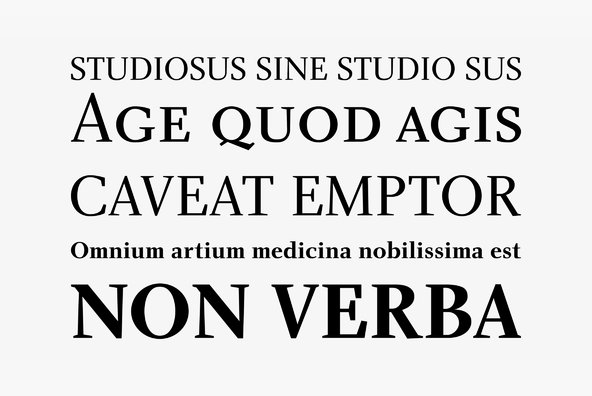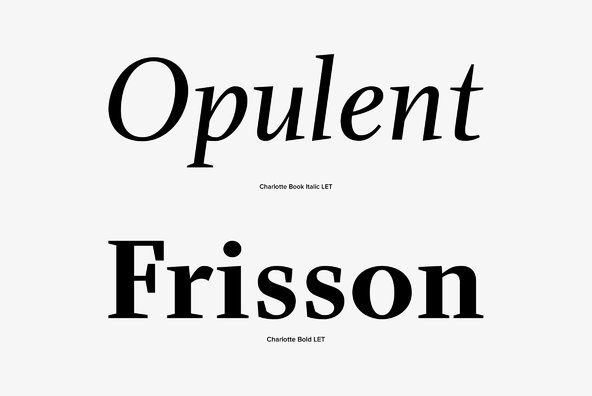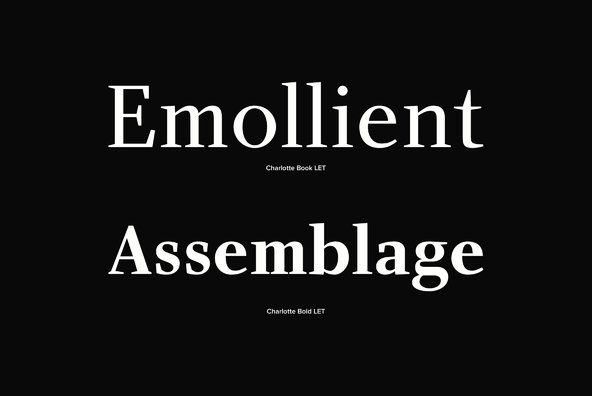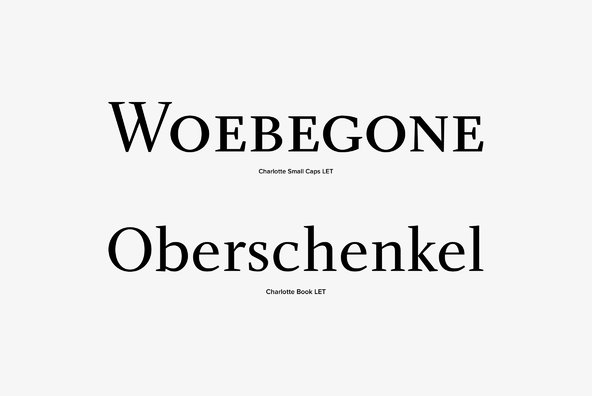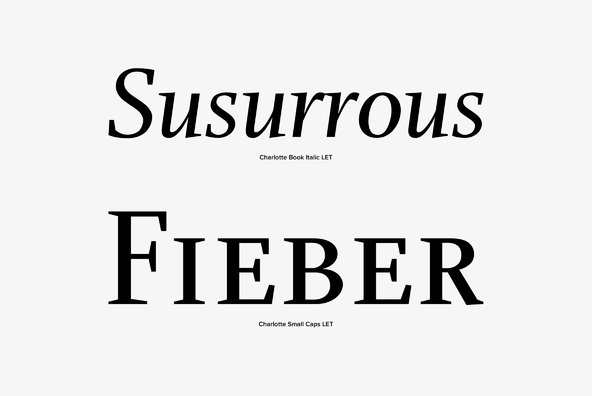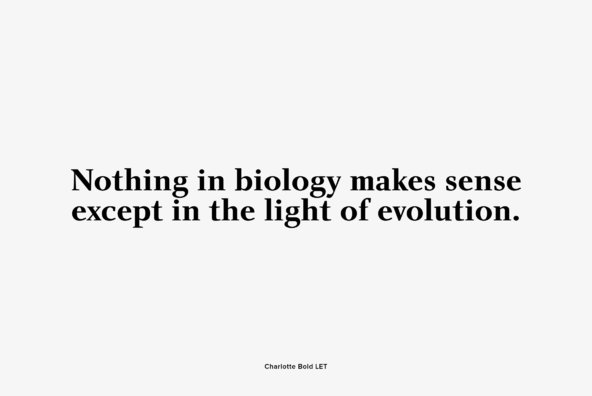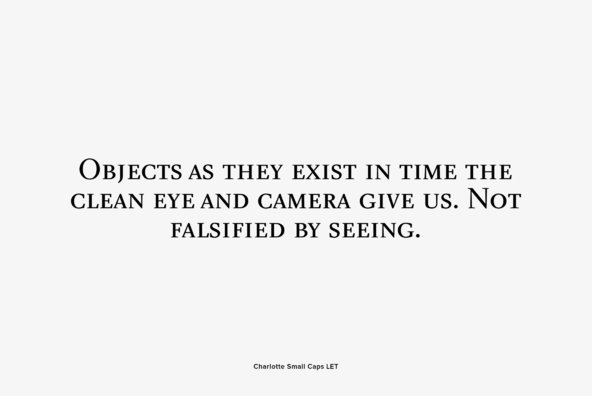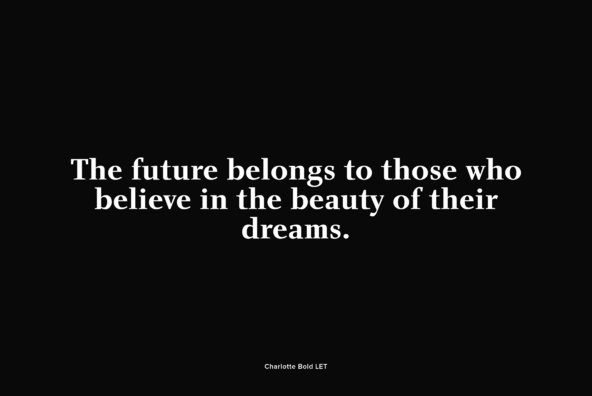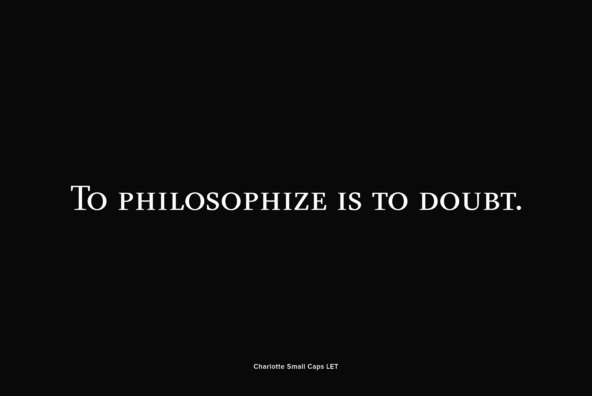
Although designer Michael Gills was influenced by 18th century French type designer Pierre-Simon Fournier, Charlotte is best described as a modern roman typeface.
Although designer Michael Gills was influenced by 18th century French type designer Pierre-Simon Fournier, Charlotte is best described as a modern roman typeface. Its clean cut style, accentuated by a strong vertical stress and unbracketed serifs, exudes an authoritative tone, guaranteeing its effectiveness for almost all text setting applications, but especially where a formal unmannered appearance is desired. Charlotte benefits from the existence in the Fontek range of a sans serif version of the family in which each variant is matched in both color and style.